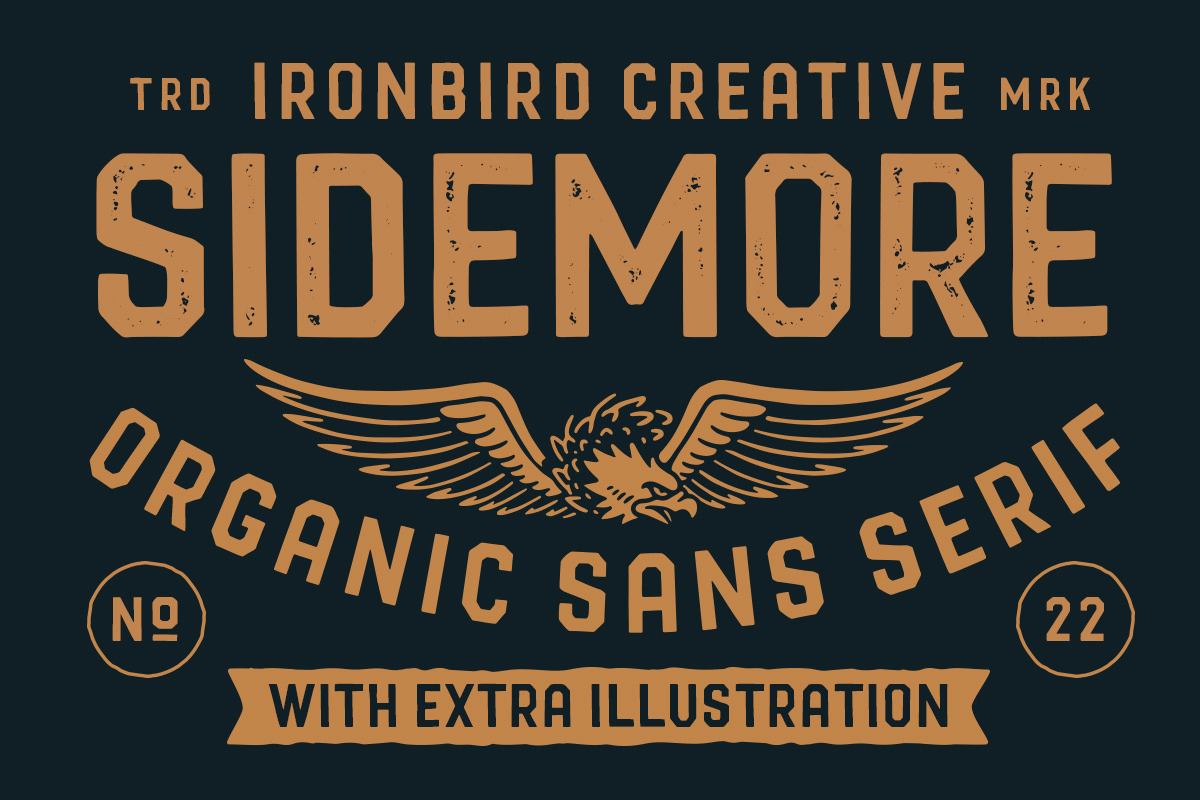
Sidemore - Organic Sans & Extras Free Download
Sidemore – Organic Sans & Extras Font Free Download is a modern, nature-inspired typeface that blends clean sans serif structure with a touch of handmade warmth. Perfect for eco-friendly brands, packaging, lifestyle blogs, and minimalist designs, Sidemore offers a fresh, approachable aesthetic with an organic feel.
With its smooth lines and natural flow, Sidemore is highly readable and incredibly versatile. The included extras—such as icons or graphic elements—add even more value, allowing you to create cohesive, eye-catching visuals with ease.